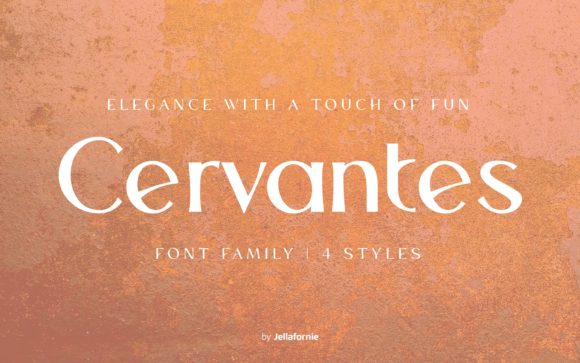
**Introducing Cervantes: The Epitome of Modern Font Charm**
Embark on a typographic journey where elegance meets innovation with Cervantes, a captivating display font that will elevate your designs to new heights. Crafted by the esteemed Jellafornie, Cervantes exudes a timeless charm that seamlessly blends classic aesthetics with a modern twist.
As you immerse yourself in the world of Cervantes, you'll discover an exquisite symphony of curves and lines that dance harmoniously across the page. Each character is meticulously designed, imbued with a touch of artistry that transforms your words into captivating works of art.
Unleash your creativity and let Cervantes guide you towards exceptional branding experiences. Its versatility knows no bounds, effortlessly adapting to a myriad of design endeavors. Whether you're crafting elegant invitations, captivating social media campaigns, or eye-catching website headers, Cervantes will lend an air of sophistication and style to every project.
But beyond its aesthetic allure, Cervantes possesses a technical prowess that will delight designers of all levels. As a PUA-encoded font, Cervantes grants you effortless access to a treasure trove of glyphs and swashes. Unleash your imagination and explore endless possibilities, adding intricate embellishments and flourishes to your designs with unparalleled ease.
Embrace Cervantes, the font that empowers you to make an unforgettable impression. Let its timeless charm captivate your audience, leaving a lasting impact that transcends the boundaries of the ordinary. With Cervantes at your fingertips, every design becomes a masterpiece, a testament to your discerning taste and unwavering pursuit of excellence.